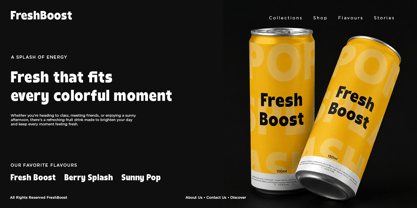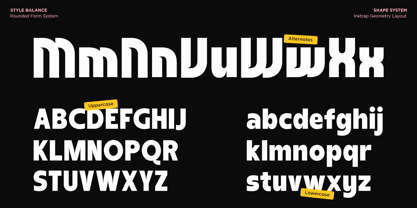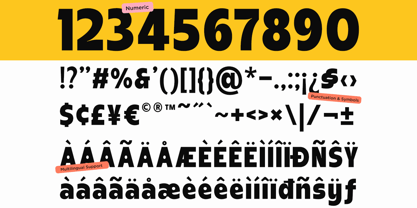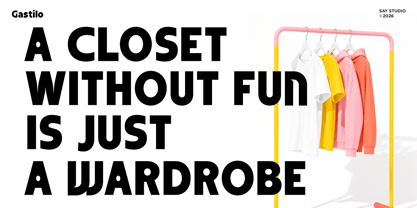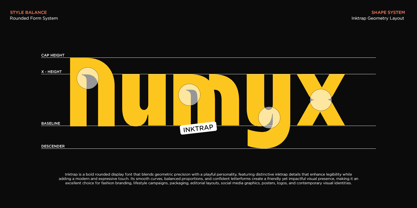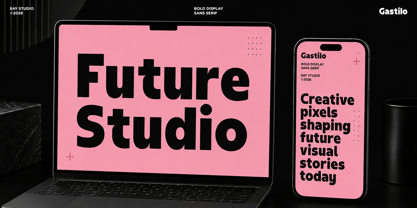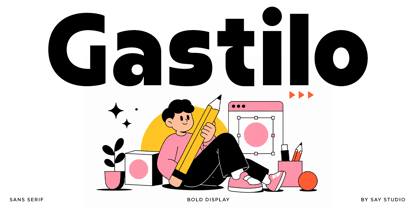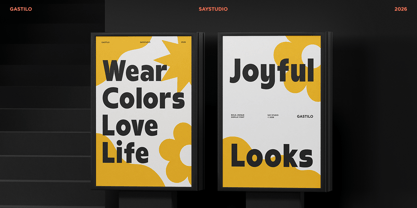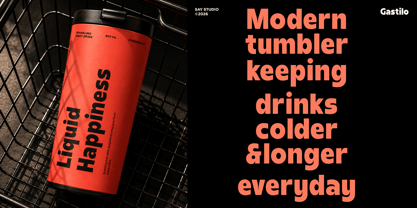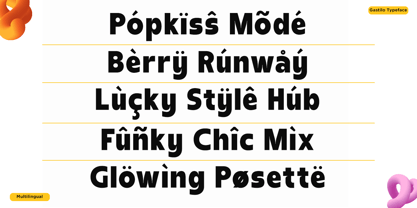
Gastilo
by Say Studio
The Gastilo Font Family was designed by Mussyayin and published by Say Studio. Gastilo contains 2 styles and family package options. More about this family
Gastilo is a bold display sans serif font crafted with smooth rounded geometry and a confident contemporary personality. Its thick strokes, soft curves, and balanced proportions create eye-catching headlines that remain highly legible across both print and digital media. Designed to make every word stand out, Gastilo delivers a fresh, energetic look with a clean professional finish.
Perfect for branding, packaging, food and berages, posters, editorial layouts, social media graphics, websites, logos, advertising, UI design, and modern visual identities. Whether you're creating a playful lifestyle brand, a vibrant beverage package, or a bold marketing campaign, Gastilo brings strong visual impact without sacrificing readability. making it a versatile choice for designers who need a modern display typeface that performs beautifully across creative projects.
• Regular and Italic
• Uppercase and Lowercase
• Number, Symbol, and Punctuation
• Multi Language Support
Designers: Mussyayin
Foundry: Say Studio